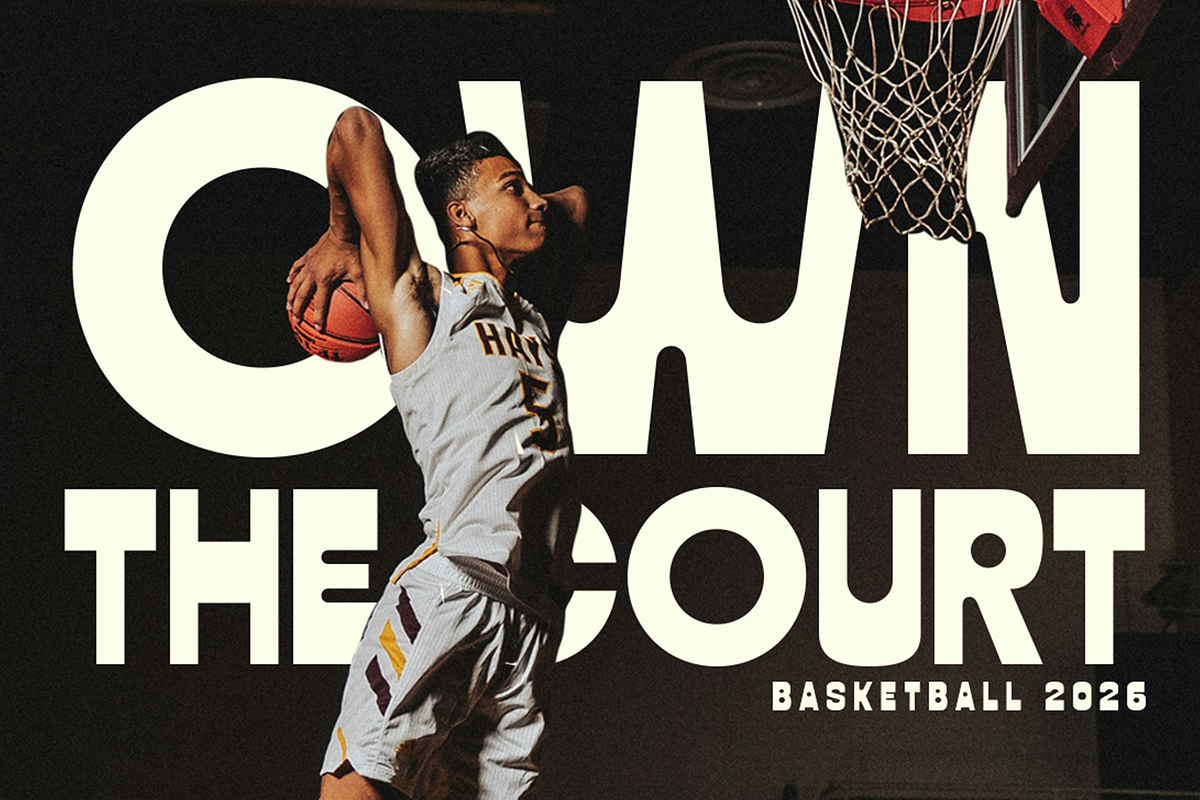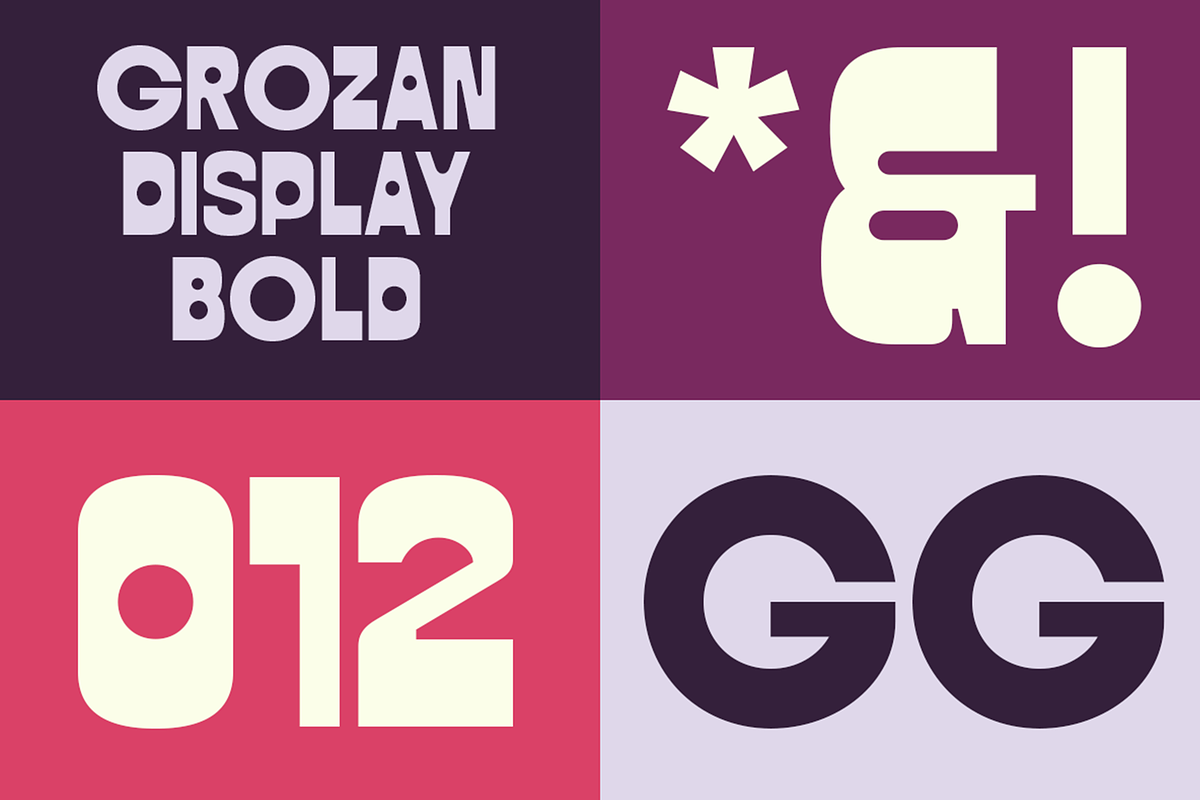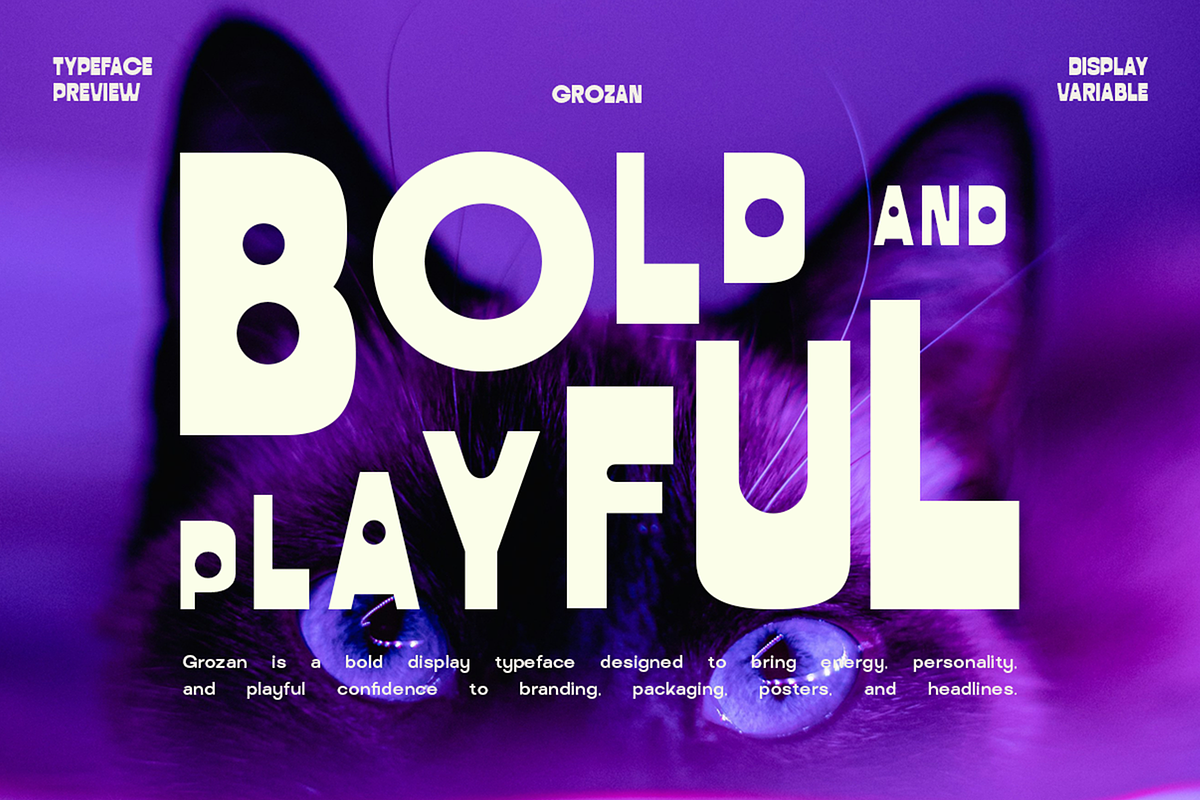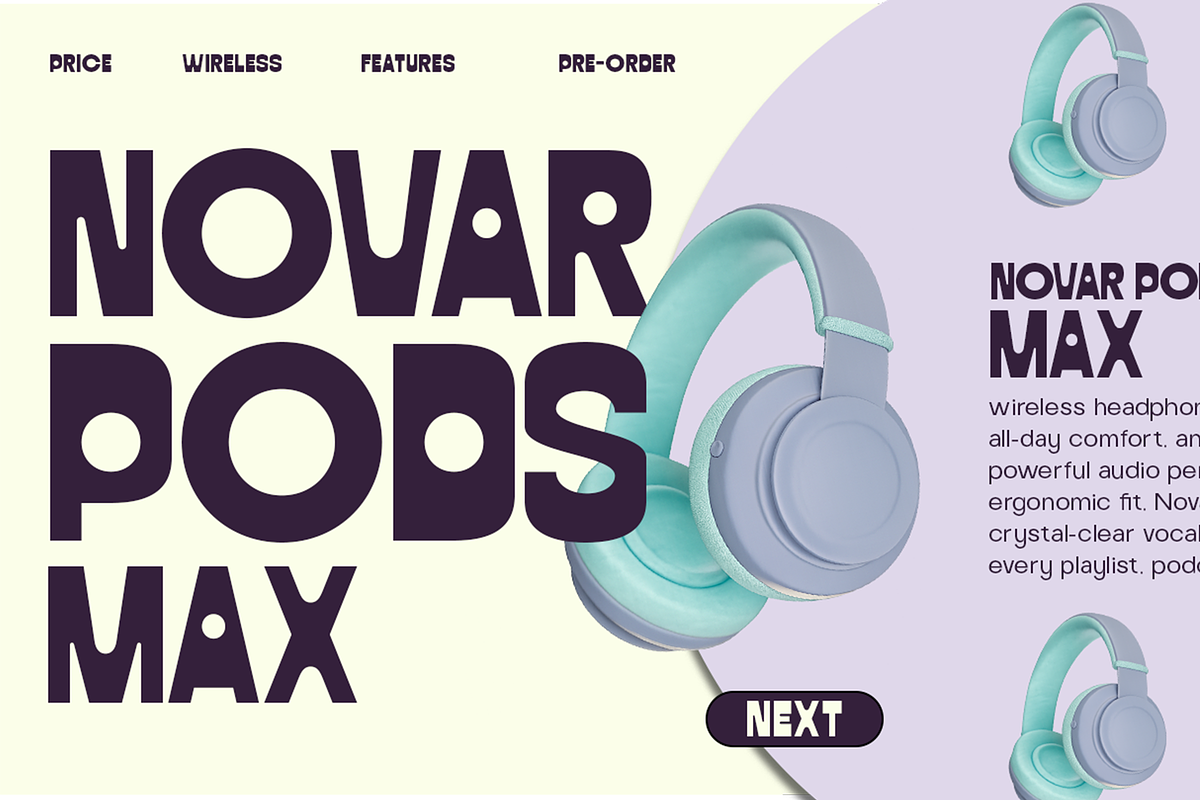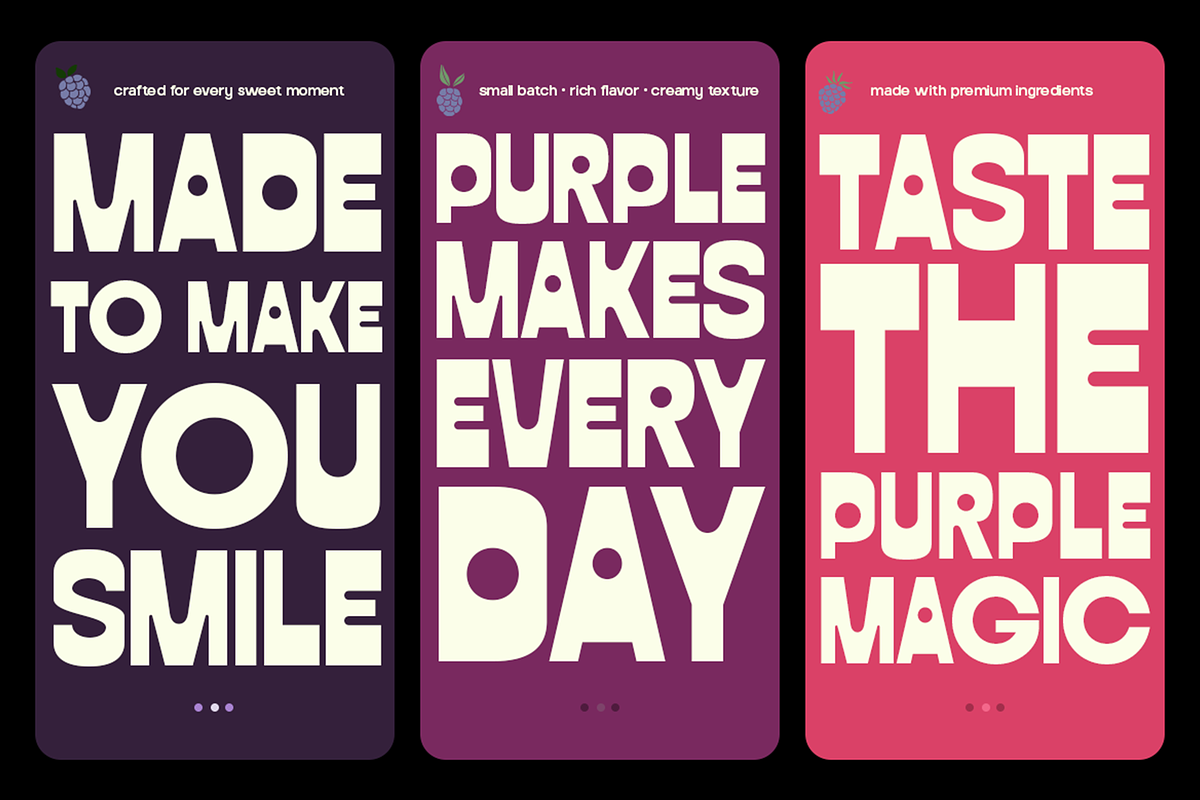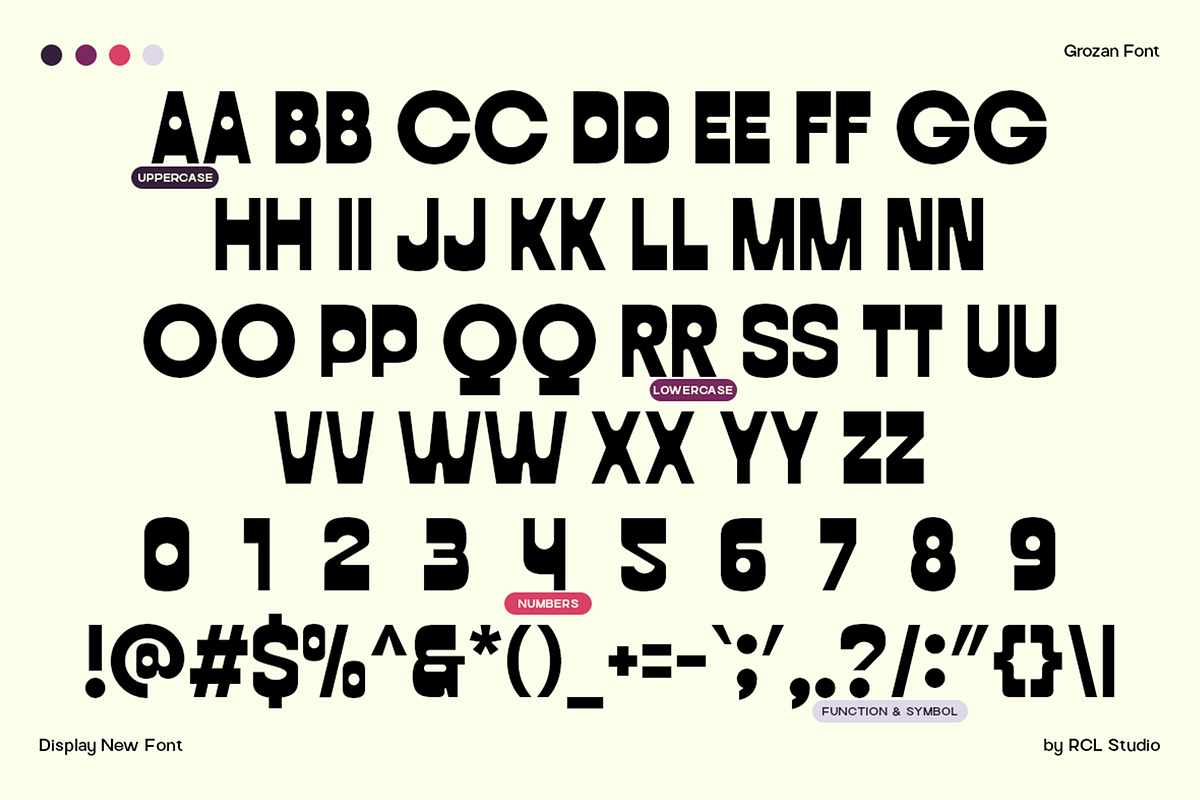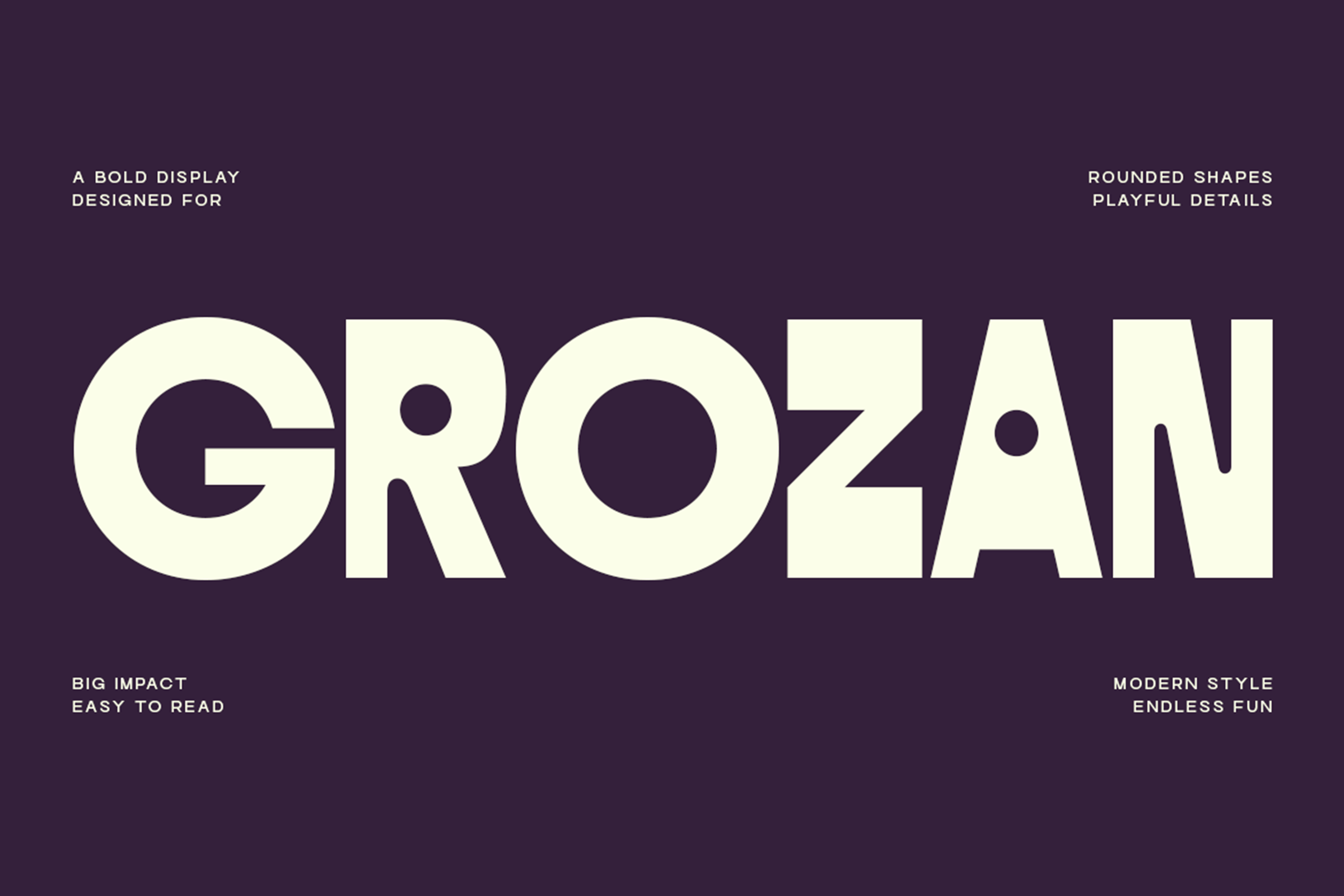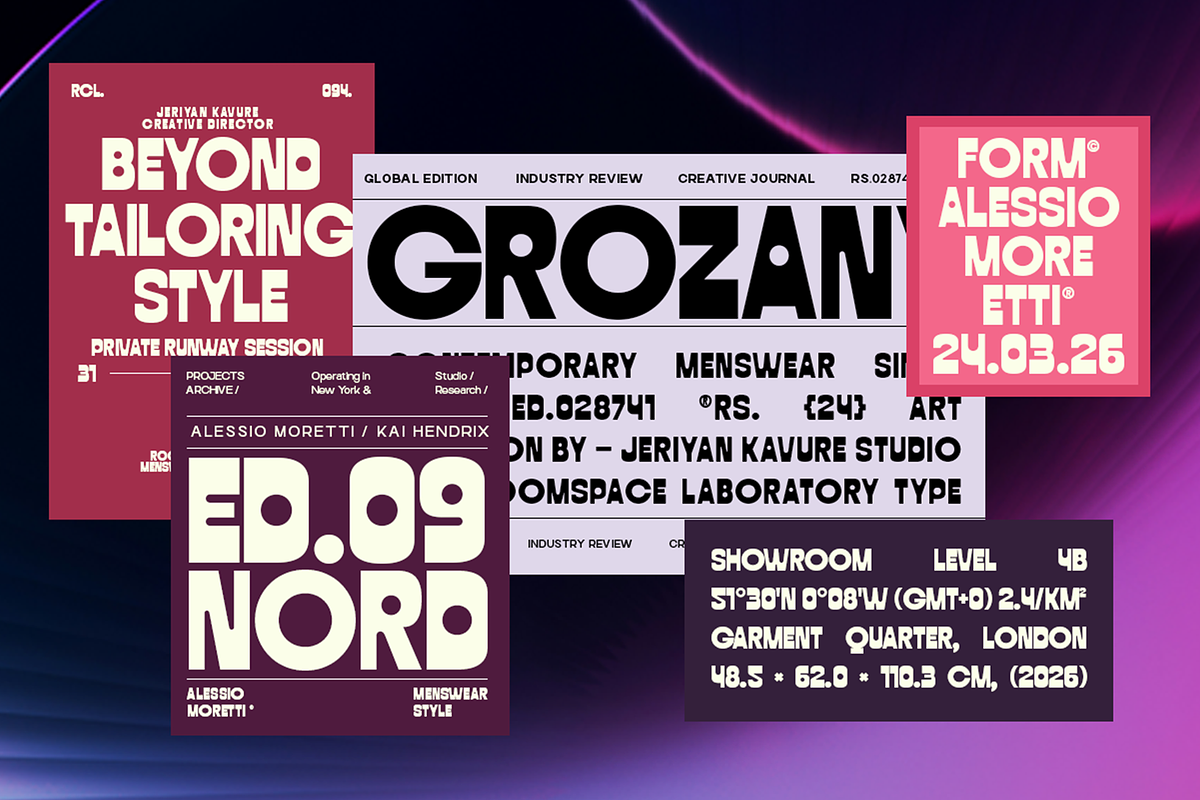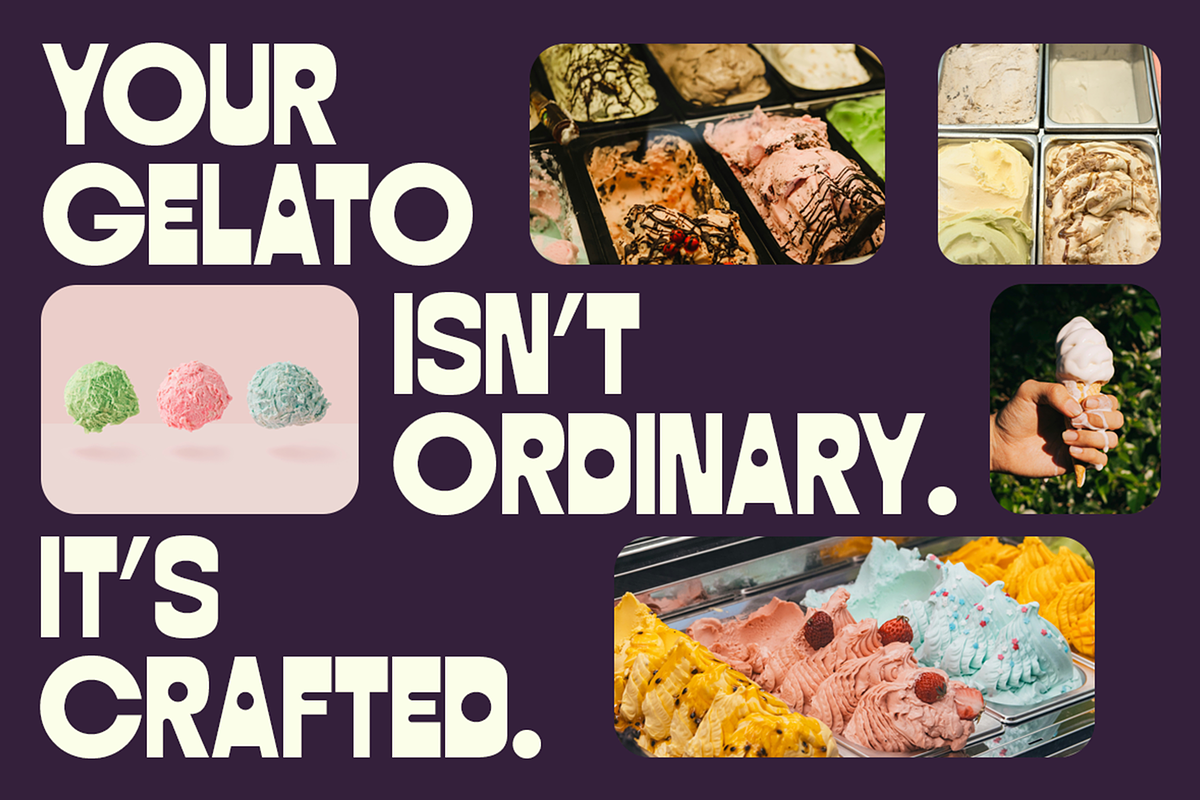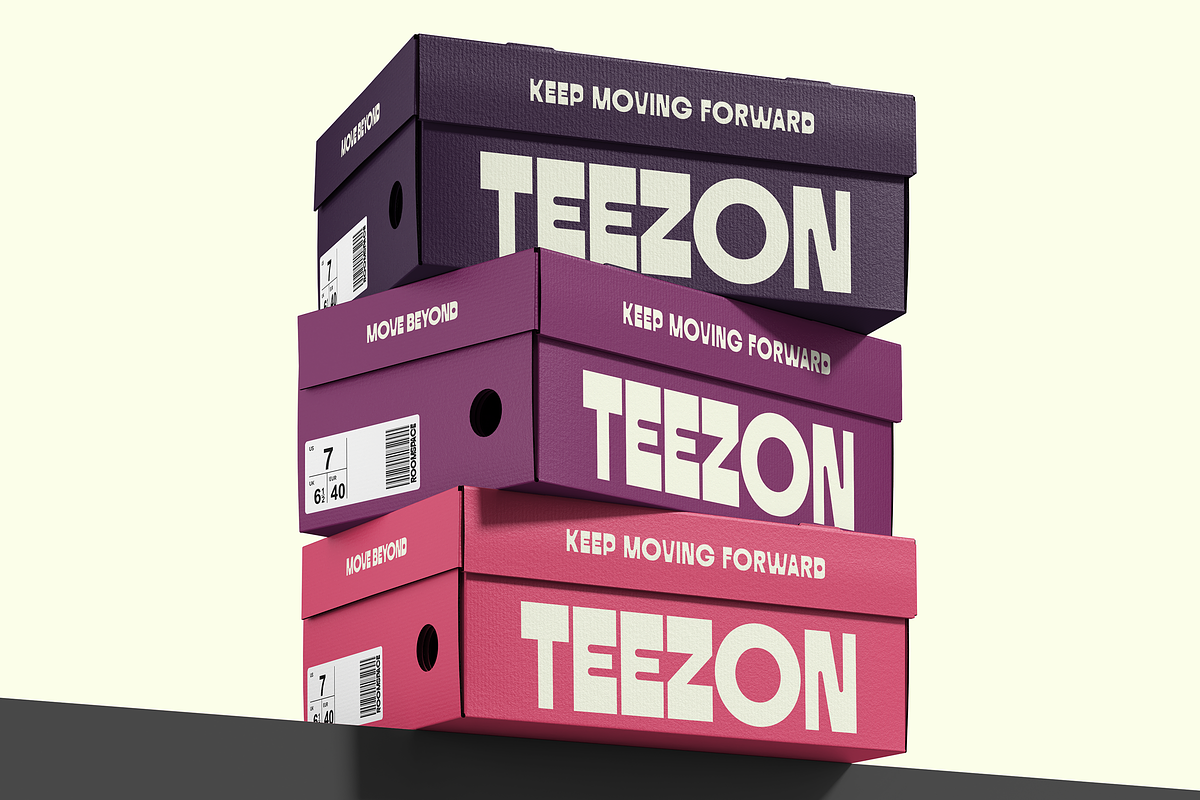
Grozan - Bold Display Typeface
Grozan is a bold, playful display typeface designed with chunky proportions, rounded geometric shapes, and distinctive letter details. Its unconventional forms and playful cuts create strong, expressive headlines with a unique visual personality while maintaining clear and recognizable letterforms.
Designed primarily for display use, Grozan is ideal for branding projects that need a bold and energetic typographic presence. Whether you're creating logos, product packaging, posters, sports graphics, editorial layouts, fashion campaigns, food and beverage branding, apparel graphics, or social media visuals, this typeface brings a playful character and strong visual impact to every composition.
Its distinctive letterforms make Grozan especially suitable for expressive typography, creative headlines, and contemporary visual identities where type needs to become an important part of the overall design.